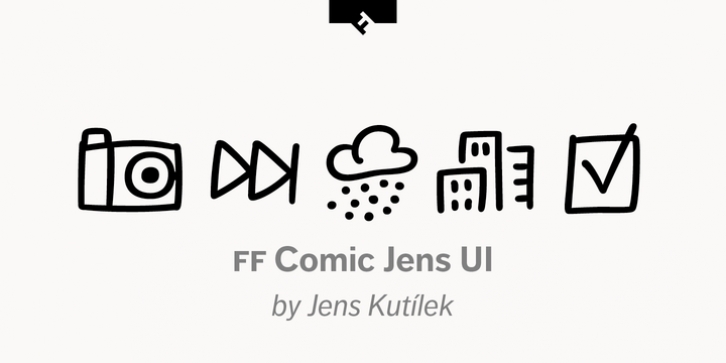
FF Comic Jens UI was designed by Jens Kutilek and published by FontFont.
FF Comic Jens UI is an outtake of the upcoming type family containing an icon set for designing user interfaces.